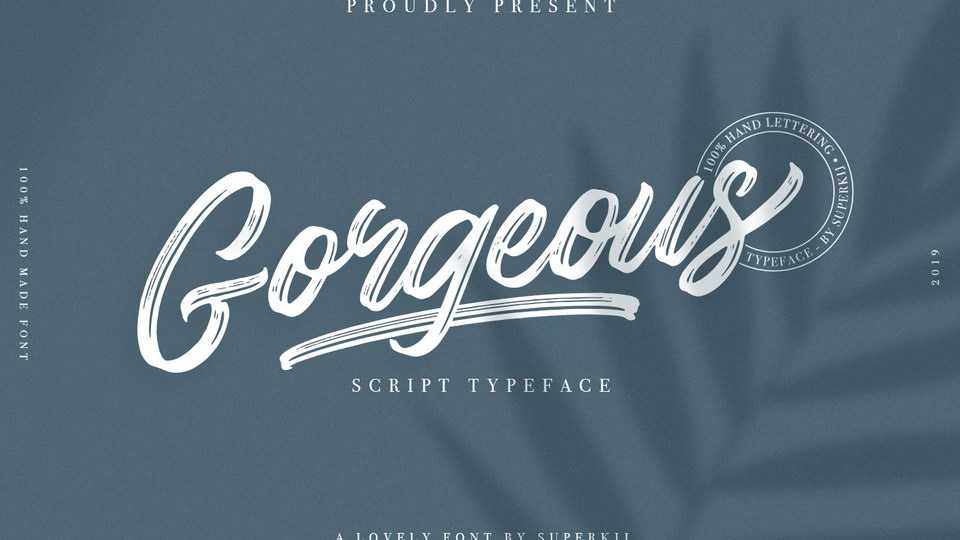
Download Gorgeous font, an amazing hand painted script for giving your designs a handcrafted yet modern feel. This handwritten looks great in both modern and classic designs.
Designer: Superkij